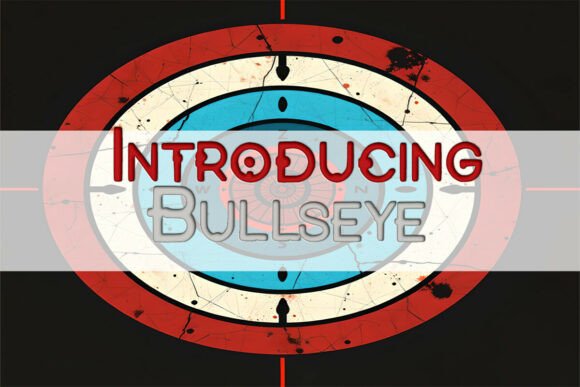
Bullseye Font: Elevate Your Creative Projects with a Striking Essence
In the realm of creative projects, the right font can make all the difference. It can elevate your design, convey your message, and leave a lasting impression on your audience. If you’re looking for a font that can add a touch of drama, uniqueness, and personality to your projects, look no further than Bullseye Font. In this article, we’ll explore the features and benefits of Bullseye Font and how it can be used to enhance your creative endeavors.
The Power of Bullseye Font
Bullseye Font is a versatile and striking font that can be used for a wide range of creative projects. Whether you’re designing a dramatic shirt, creating distinctive stickers, developing a unique branding scheme, or crafting a captivating magazine layout, Bullseye Font is perfectly equipped to leave a lasting impression. Its bold and eye-catching design makes it perfect for projects that require a touch of drama and personality.
Key Features of Bullseye Font
- Unique Design: Bullseye Font boasts a unique and striking design that sets it apart from other fonts.
- Versatility: Bullseye Font can be used for a wide range of creative projects, from shirt designs to social media posts.
- Scalability: Bullseye Font is highly scalable, making it perfect for projects that require large or small text.
Using Bullseye Font for Creative Projects
Bullseye Font can be used for a wide range of creative projects, including:
Project Ideas
- Dramatic Shirt Designs: Use Bullseye Font to create eye-catching shirt designs that are sure to turn heads.
- Distinctive Stickers: Create unique and recognizable stickers that feature Bullseye Font.
- Unique Branding Schemes: Use Bullseye Font to develop a branding scheme that sets your business apart from the competition.
- Captivating Magazine Layouts: Use Bullseye Font to create magazine layouts that are both visually appealing and engaging.
Complementing SVG Files and Greeting Cards
Bullseye Font can be used to complement SVG files and greeting cards, adding a touch of personality and charm to your designs. Whether you’re creating custom greeting cards or cutting files for your Cricut machine, Bullseye Font is a great choice.
Using Bullseye Font with SVG Files
- Custom Greeting Cards: Use Bullseye Font to create custom greeting cards that are both personal and unique.
- Cricut Projects: Use Bullseye Font to add a touch of personality to your Cricut projects, including cutting files and iron-on designs.
Transforming Social Media Posts
In today’s digital age, social media is an essential platform for businesses and individuals to connect with their audience. Bullseye Font can be used to transform your social media posts, giving them a unique personality that stands out from the crowd.
In conclusion, Bullseye Font is a versatile and striking font that can be used to elevate your creative projects. Whether you’re designing a dramatic shirt, creating distinctive stickers, developing a unique branding scheme, or crafting a captivating magazine layout, Bullseye Font is perfectly equipped to leave a lasting impression. With its unique design, scalability, and ease of use, Bullseye Font is a great choice for any creative project.